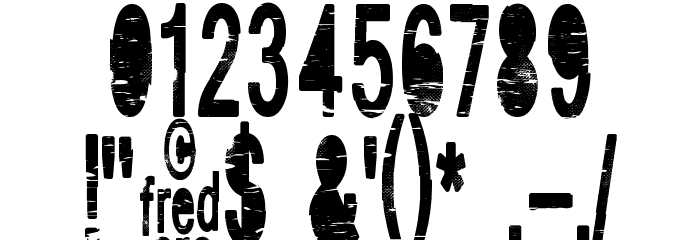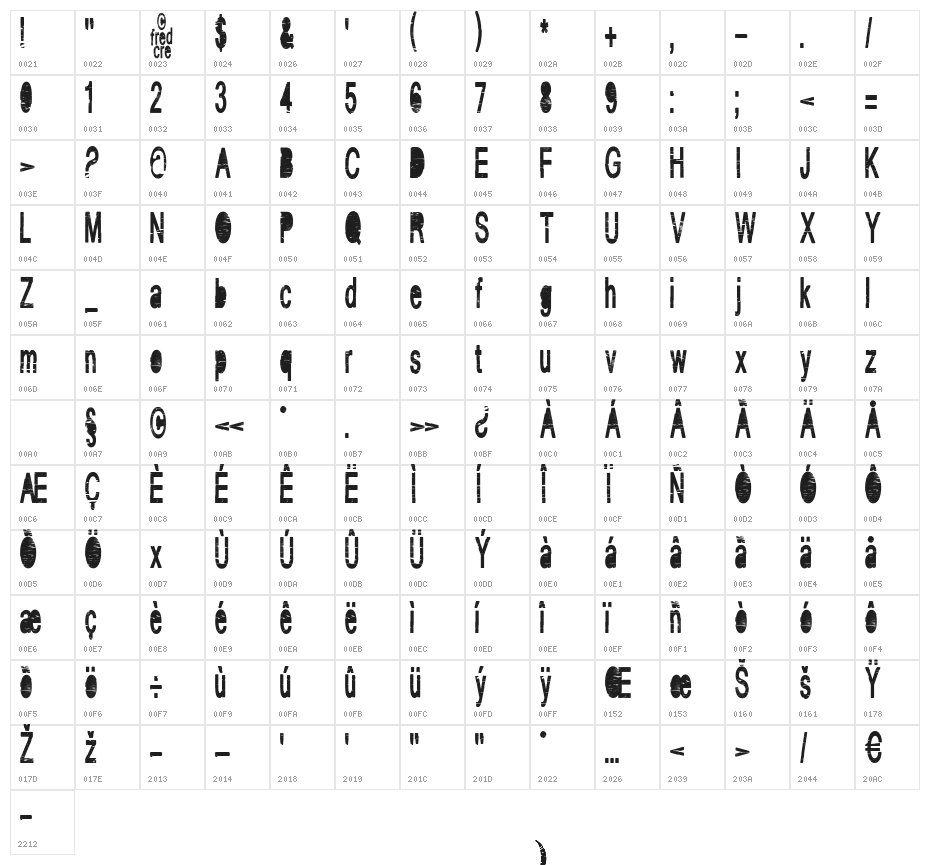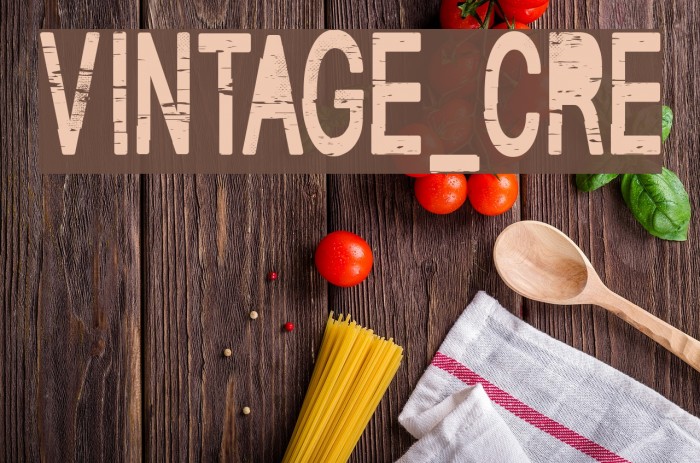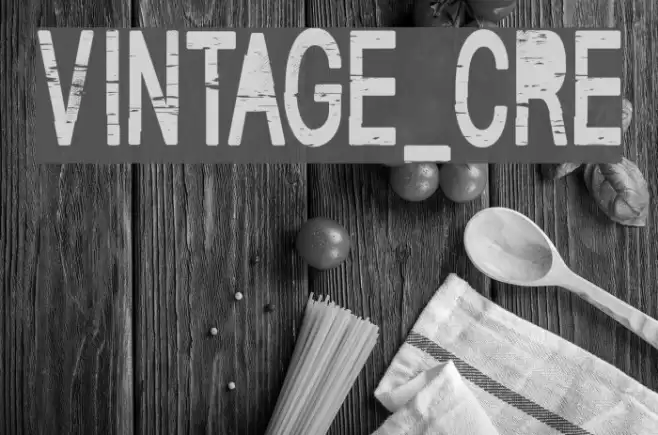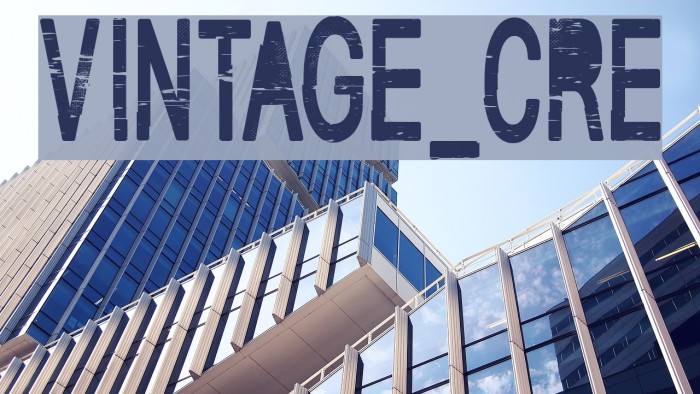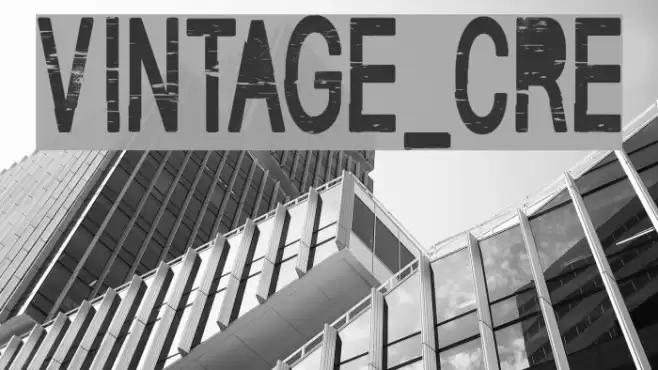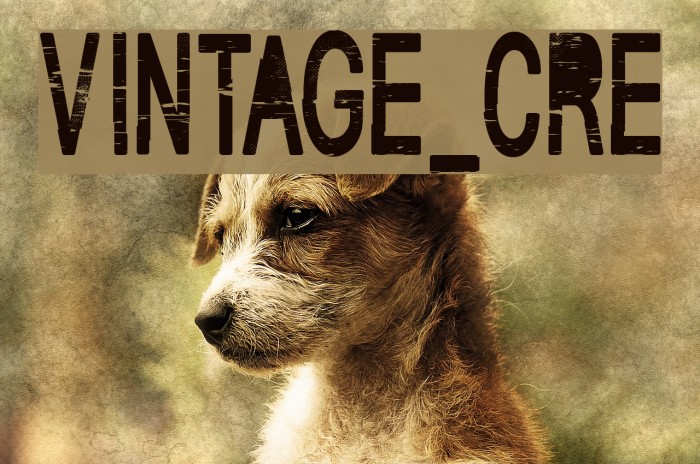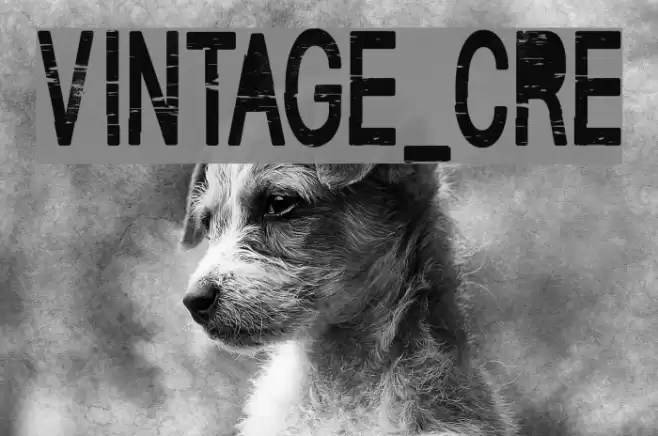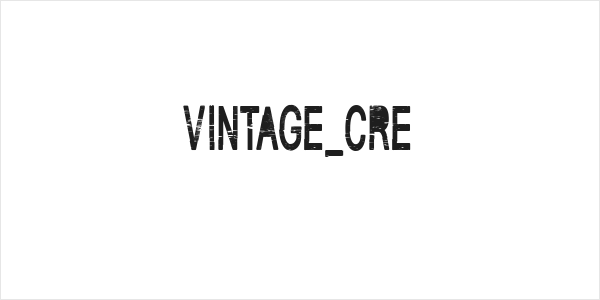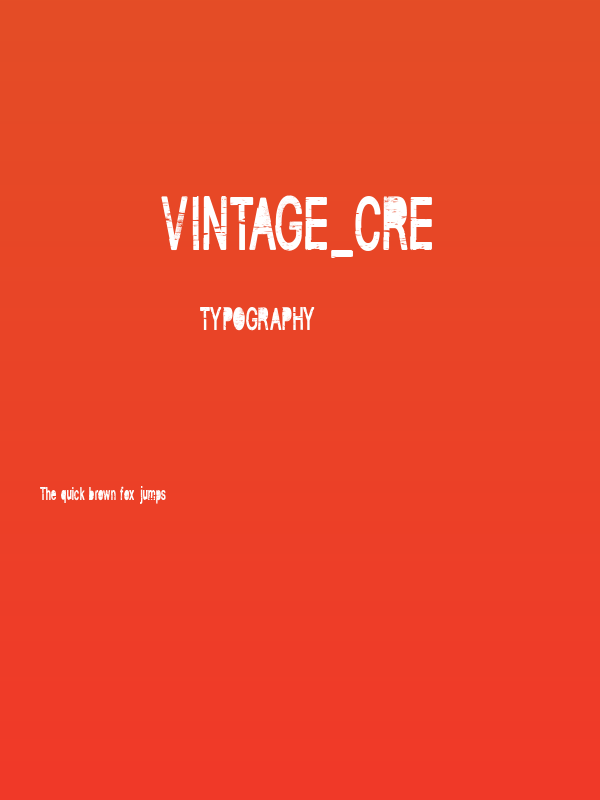
VINTAGE_CRE Font
VINTAGE_CRE Description
This font features a distressed, vintage aesthetic with a bold and impactful presence. The uppercase and lowercase letters are uniformly bold, with a textured, worn appearance that adds character and depth. The numerals and special characters maintain this rugged style, making the font ideal for projects that require a retro or industrial feel. The overall design is consistent, with each character exhibiting a slightly rough edge, enhancing its vintage charm. This font is perfect for creating eye-catching headlines, posters, or branding materials that need a touch of nostalgia.
| Proposed Projects | Ideal for vintage-themed posters, branding, logos, and headlines. |